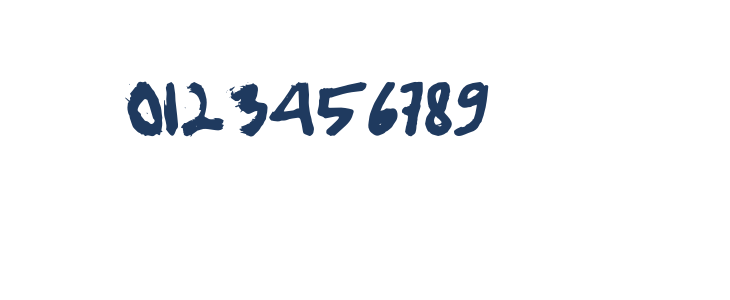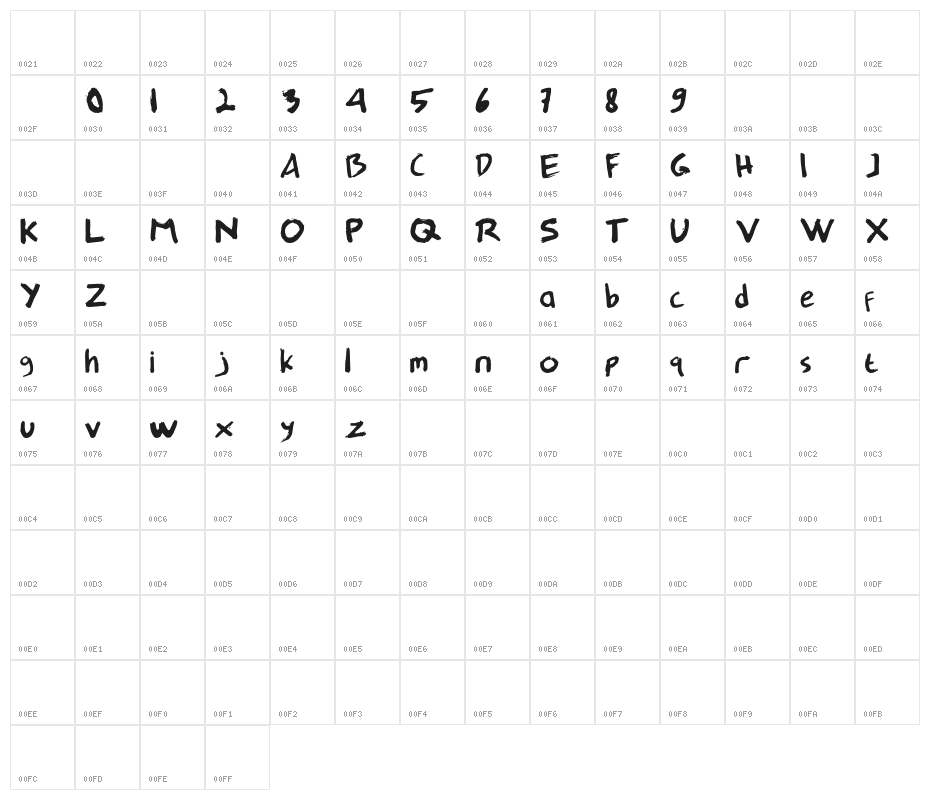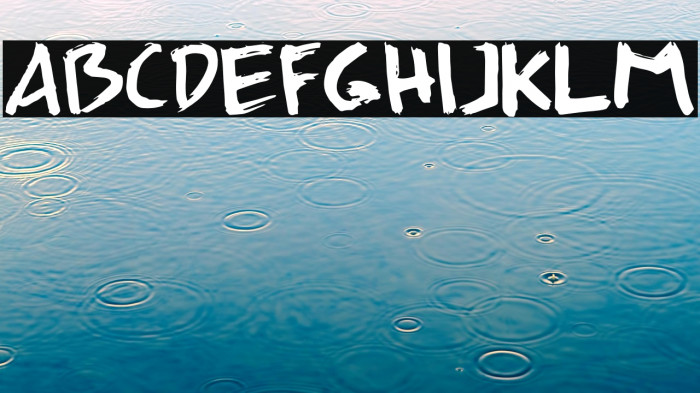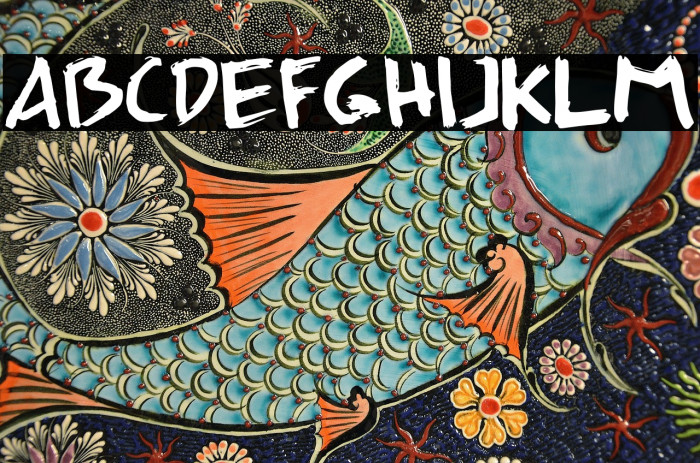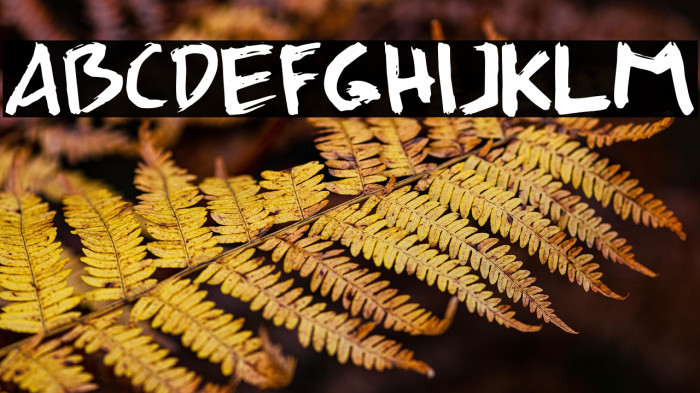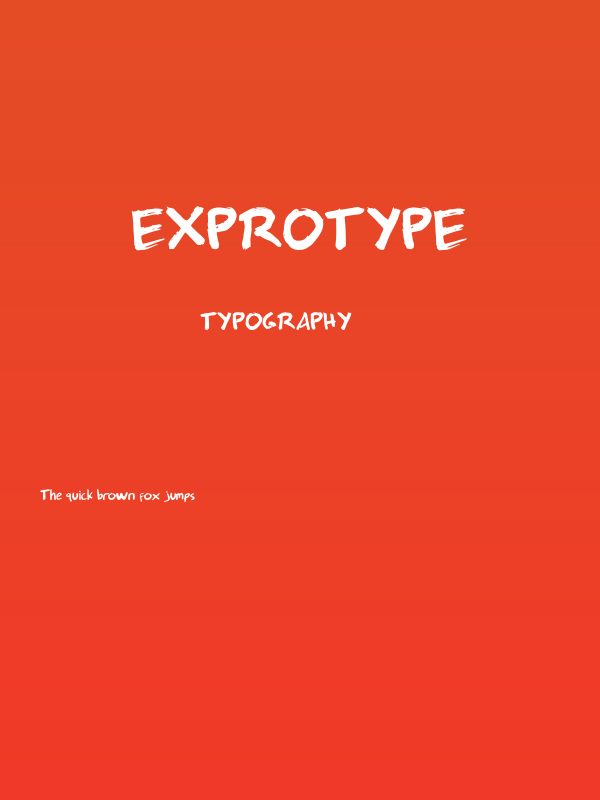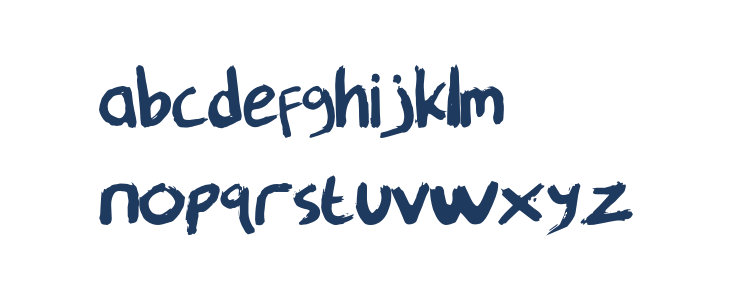
ExproType Font
ExproType Description
This font features a bold, expressive brush style that exudes energy and dynamism. The strokes are thick and uneven, giving it a hand-painted appearance that is both artistic and raw. The uppercase and lowercase letters maintain a consistent style, with a slightly irregular baseline that enhances its organic feel. The numbers and special characters follow the same aesthetic, ensuring a cohesive look across all characters. The font's boldness and unique character make it stand out, ideal for projects that require a strong visual impact.
| Overall Style | Artistic, Expressive |
| Proposed Projects | Ideal for posters, branding, album covers, and any project needing a bold, artistic touch. |